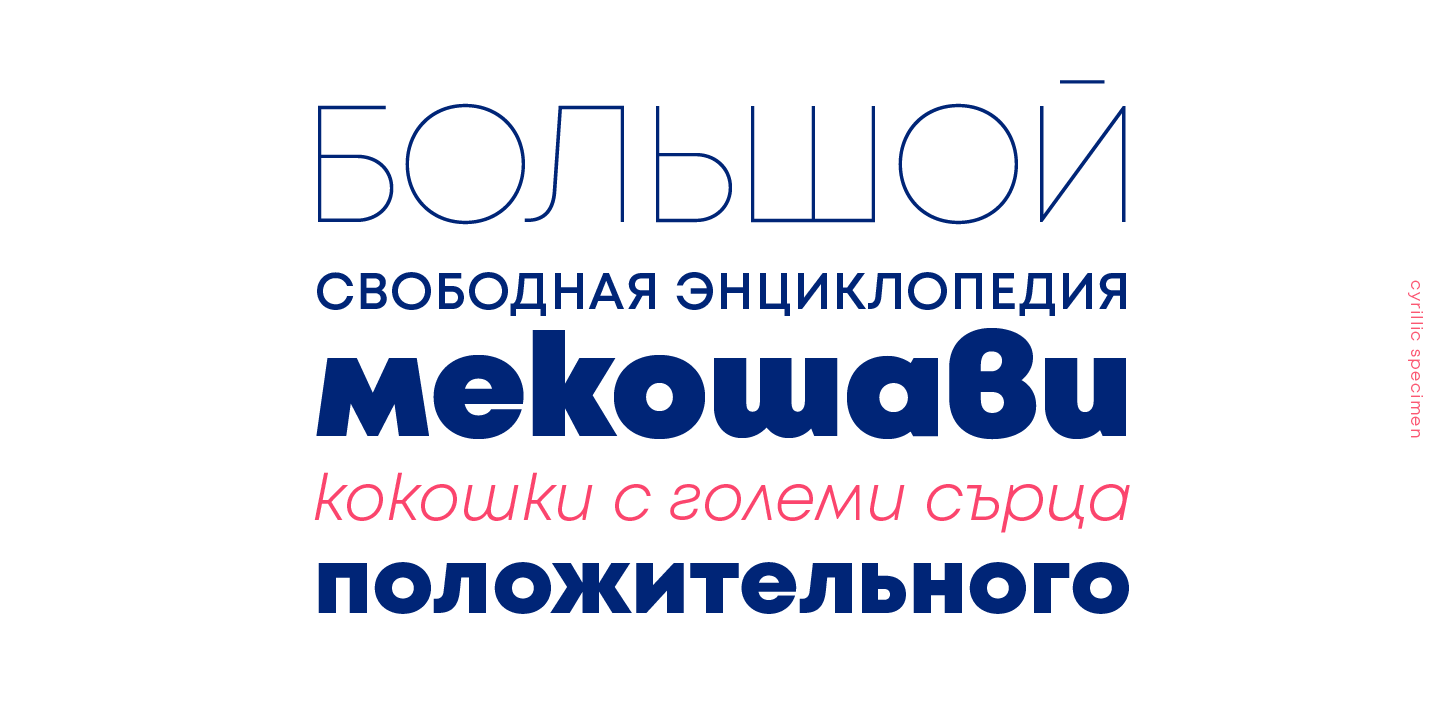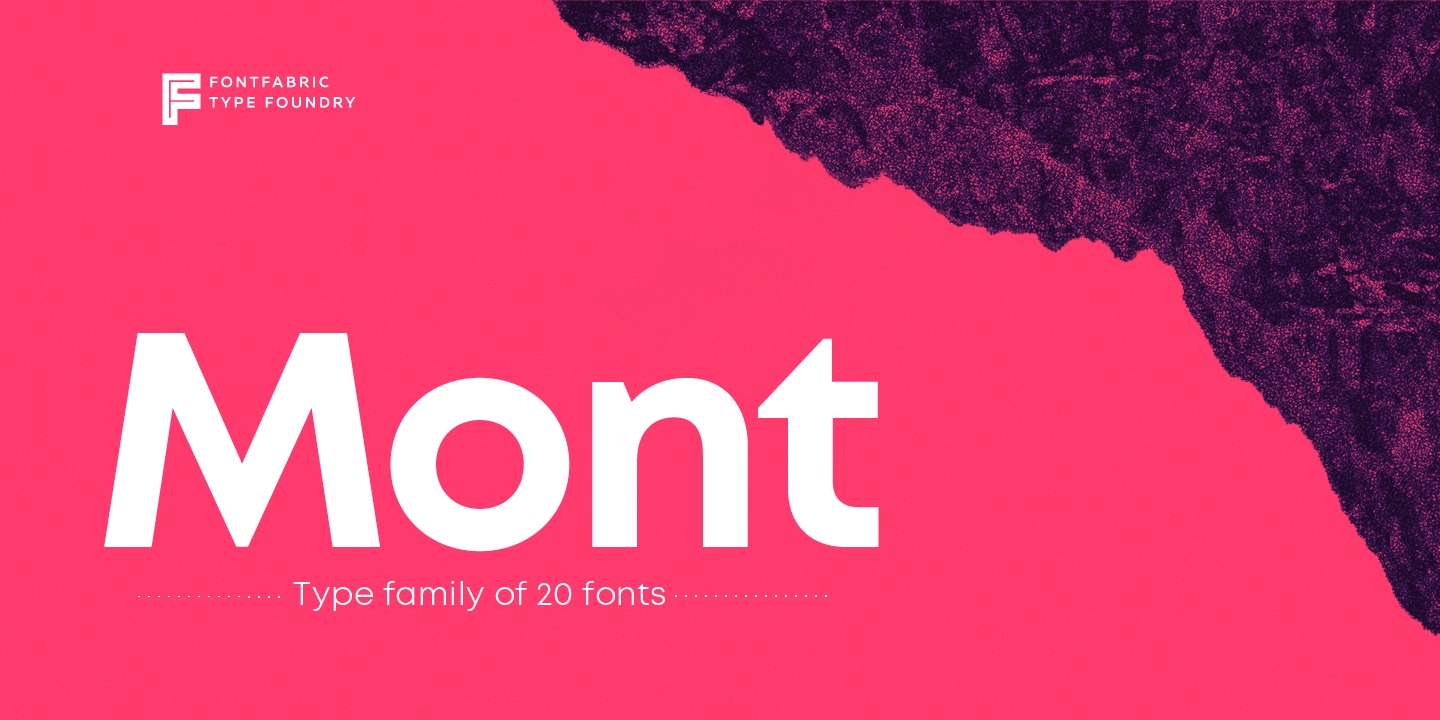
About Mont
Mont is a geometric sans serif consisting of 10 weights ranging from Hairline to Black with matching italics. It supports Extended Latin, Cyrillic and Greek – more than 130 languages all together. The balanced characteristic of Mont with unique details,…